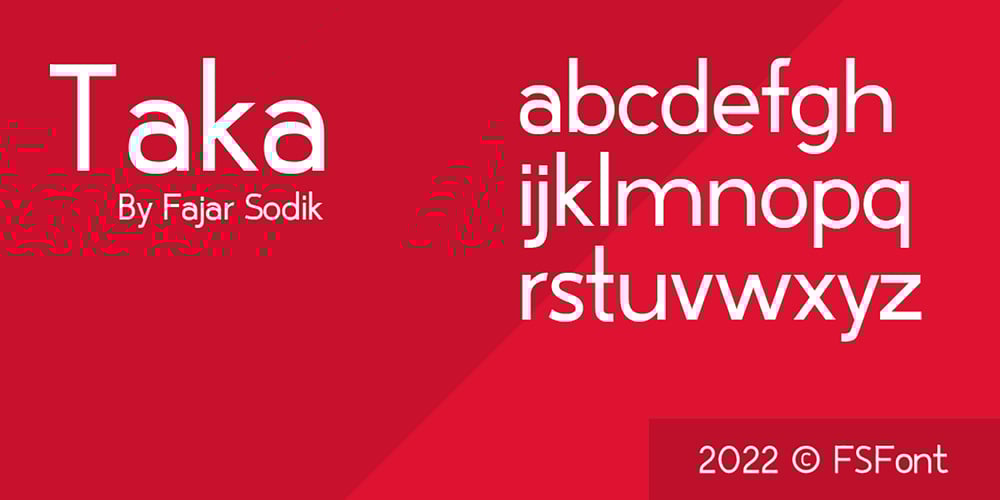
Taka Sans Font Family was designed by Fajar Sodik and published by FSodic.com. Taka Sans contains 1 styles and family package options. Taka is a font that can be used in all situations, be it Articles, News, Titles and so on. We will be adding variants of the font in the coming weeks which will make this font even more complete.This font is only sold by Monotype and its subsidiaries, make sure you get the original only here!